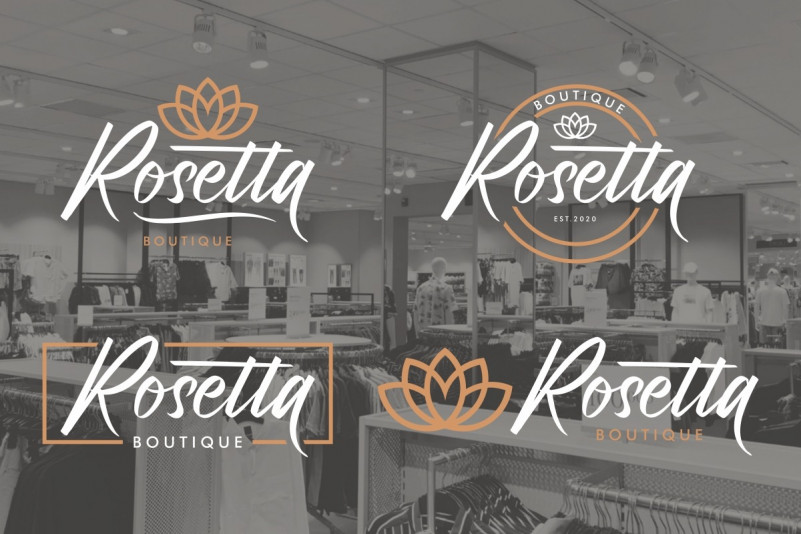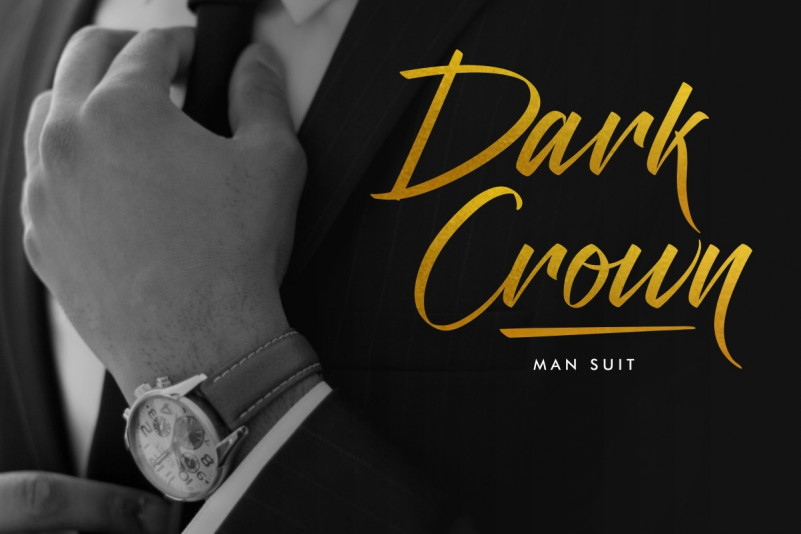
Adigussto Handwritten Font
Adigussto is a signature font that we created with dramatic hand strokes paying attention to the aesthetic appearance in every curve that is so elegant and fun.
This font is designed with a natural touch of handwriting refined to create portions and compositions that suit your needs. So this font is perfect for crafts, kids writing, adventure posters, food banner titles, wedding invitations, product packaging logos, quotes, social media page covers, furniture banner headers, book covers, and more.